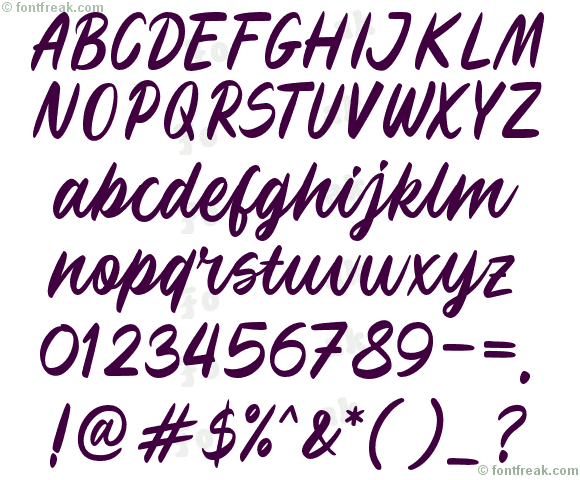
KevinAprilio
The KevinAprilio font, designed by Situjuh Nazara, is a captivating display font that exudes a modern yet playful vibe. As a handcrafted script typeface, it features fluid, elegant strokes that give it a distinctive personality. The lettering showcases a moderate stroke weight with subtle contrast, ensuring readability while maintaining a stylish appearance. The generous spacing between characters adds to its charm, making it suitable for various design applications.
This font is ideal for a wide range of uses, including wedding invitations where its graceful curves can set a romantic tone. It can also enhance movie posters, allowing titles to stand out with a contemporary flair. Additionally, KevinAprilio is perfect for restaurant menus, where it can create an inviting atmosphere, and for social media graphics, helping content creators attract attention with its unique style. Graphic designers and small business owners will find this font particularly useful for branding projects, as it lends a personal touch to logos and marketing materials.
The target audience for the KevinAprilio font includes graphic designers seeking to add a unique flair to their projects, small business owners looking for a fresh typeface for branding, and content creators who want to enhance their visual content with an eye-catching font.
What sets the KevinAprilio font apart is its combination of elegance and approachability, making it versatile enough to fit both formal and casual contexts. With its free download option, designers can easily incorporate this font into their projects without any financial constraints. Overall, KevinAprilio stands out for its ability to blend sophistication with a friendly demeanor, making it a go-to choice for various creative endeavors.